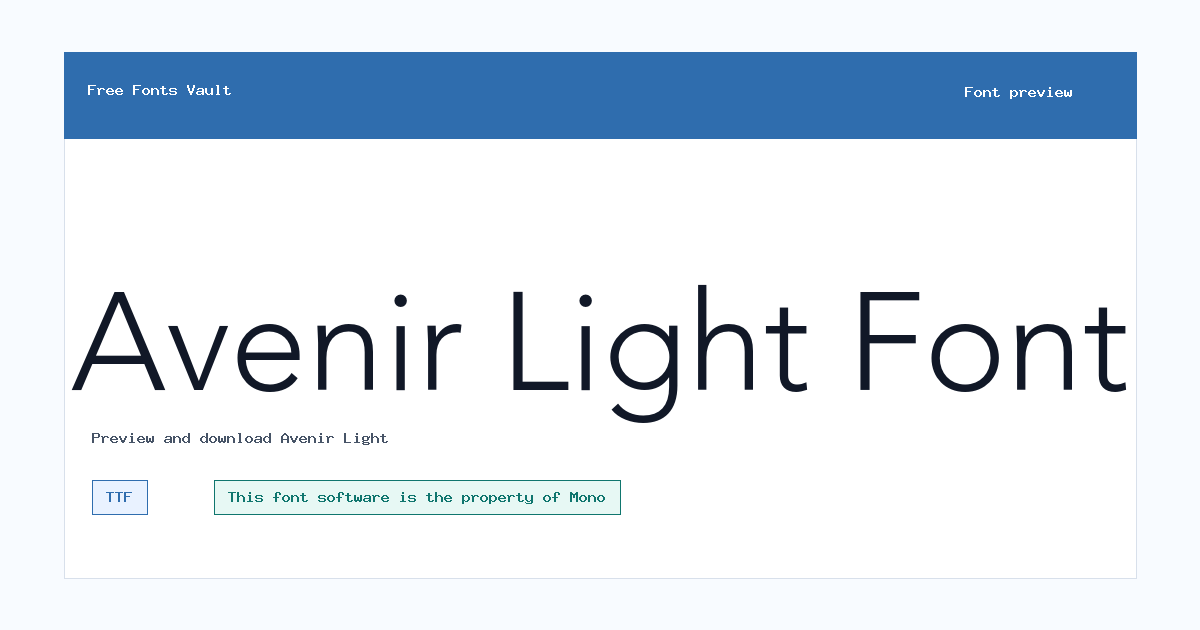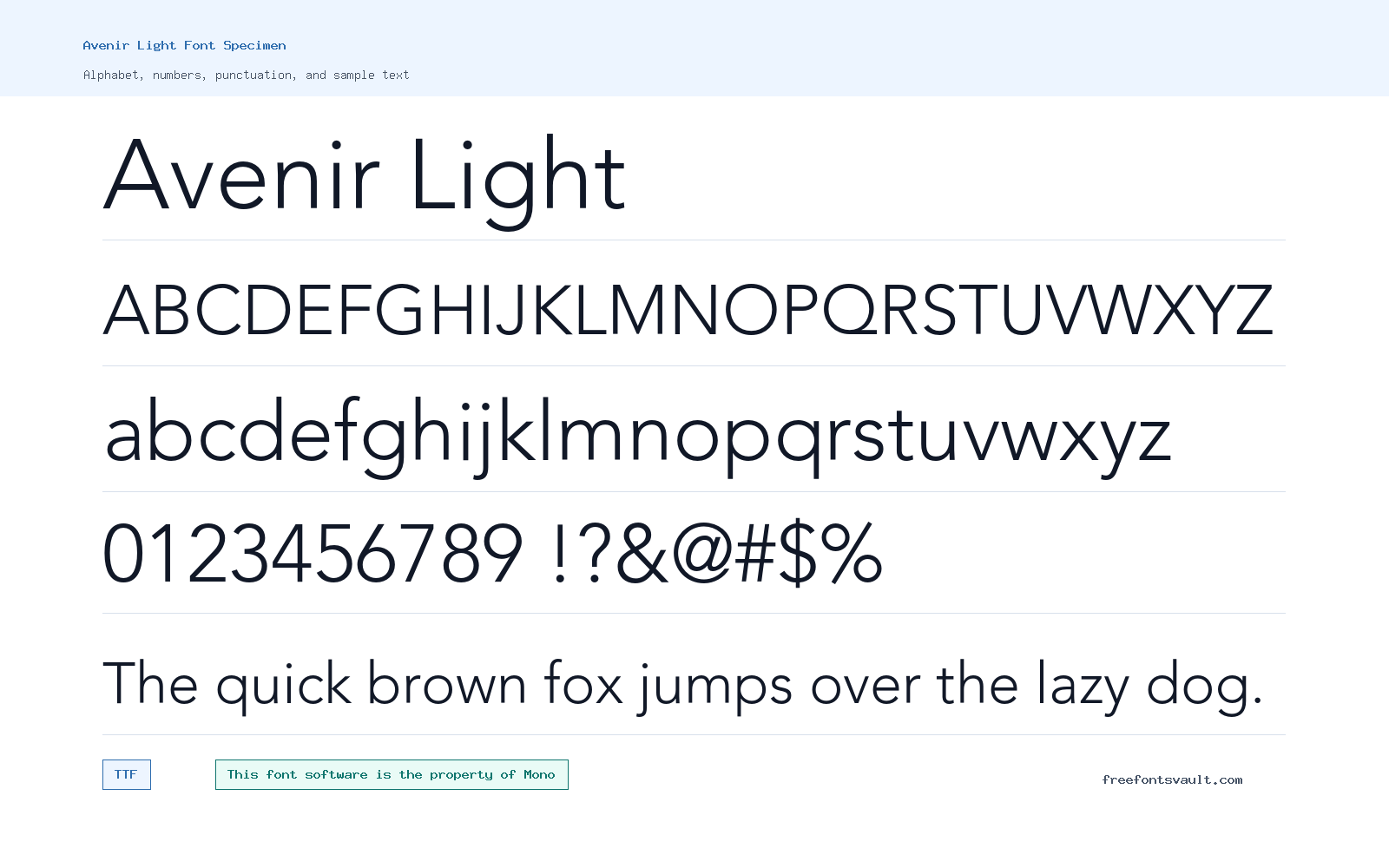
Avenir Light
- Designer Nadine Chahine and Adrian Frutiger
- Foundry Monotype GmbH
Avenir Light is a light-weight sans serif with a clean, calm look. Its thin structure works best when you want a modern tone without making the text feel heavy.
About Avenir Light
Avenir Light uses a 300-weight normal style in TrueType format. The design direction is suited to people looking for a geometric-humanist sans: simple shapes, open spacing, and a lighter voice than regular or bold sans serif fonts. It can make headings, labels, short descriptions, and interface text feel more refined, but it needs enough size and contrast to stay readable.
Use the preview box to test the exact words you plan to set. Light fonts can look elegant in large display sizes, but they may become faint in small body text, low-contrast colors, or thin print output. Try uppercase headings, mixed-case titles, numerals, and punctuation before choosing it for a real layout.
- Light 300 weight with a normal upright style
- Minimal headings, product labels, menus, and short interface text
- Clean editorial layouts, presentation titles, and simple branding drafts
The font credits name Nadine Chahine and Adrian Frutiger as designers, with Monotype GmbH as the foundry. Monotype’s own Avenir Next World page also connects Nadine Chahine with the broader Avenir Next World family, while Microsoft’s typography page documents Avenir Next LT Pro as a Monotype-related family designed by Adrian Frutiger with Akira Kobayashi.
What weight is Avenir Light?
The listed style is normal with a 300 font weight, which is commonly treated as a light weight.
Is Avenir Light good for body text?
It can work for short text at comfortable sizes, but a light weight may be too thin for long reading, small captions, or low-contrast layouts.